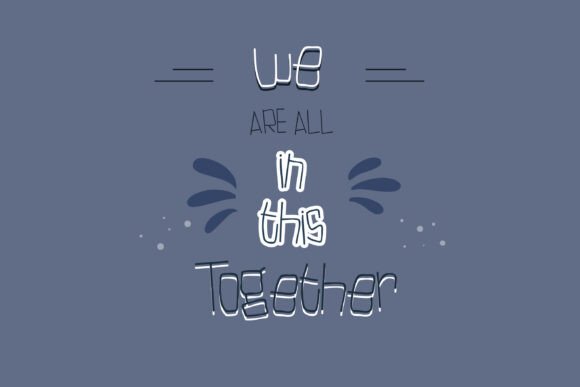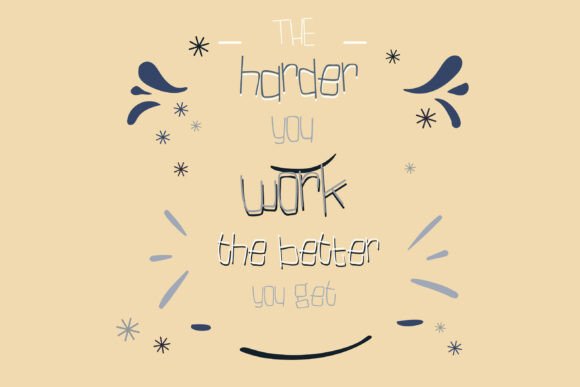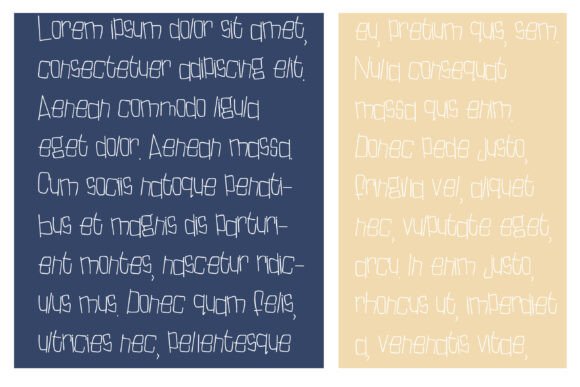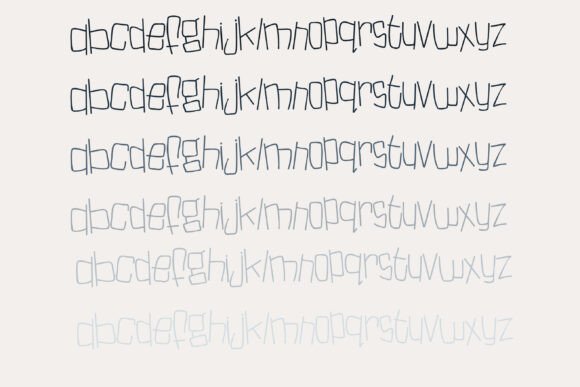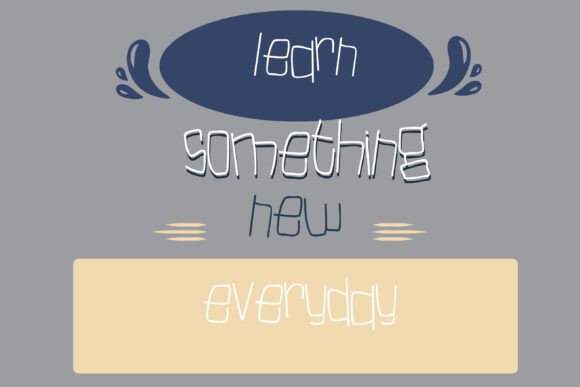
The Perfect Brushstroke for Your Next Design
As designers, we’ve all been there – staring at a blank page, trying to come up with the perfect font to bring our vision to life. It’s that moment of inspiration when everything falls into place, and the perfect brushstroke appears. For many, it’s the start of a beautiful relationship with a font that speaks to our creative soul. And for those who appreciate the charm of handwritten fonts, there’s a new friend in town: Boxster Font.
This hand-crafted font is a beautiful blend of whimsy and sophistication, perfect for adding a personal touch to your designs. Whether you’re working on invitations, greeting cards, or any other project that requires a unique touch, Boxster Font is an excellent choice. Its boxy, print-inspired design makes it stand out from the crowd, and the bold version included takes it to a whole new level. With Boxster Font, designers can add a touch of personality to their work, making it truly unforgettable.
Key Features of Boxster Font
- Font Family: Boxster, with multiple styles (Regular, Italic, Bold, Bold Italic)
- Character Set: Supports a wide range of languages, including Latin, Cyrillic, and Greek alphabets
- Unique Characteristics: Features a unique, modern design with a mix of geometric and organic shapes, making it ideal for use in logos, branding, and advertising
Boxster Font Review
Overall, I think the Boxster Font is an interesting choice for designers. Here are some things that work well:
- ✨ It has a unique, playful vibe that can add a touch of whimsy to your designs.
- ✨ The font is highly customizable, with a range of weights and styles to choose from.
- ✨ The font is well-suited for headings and titles, where you want to make a statement.
- ⚠️ The font may not be suitable for body text, as it can be difficult to read at smaller sizes.
- ⚠️ The font’s playful vibe may not be suitable for all types of projects, particularly those that require a more serious tone.
- ⚠️ The font’s customization options can be overwhelming, making it difficult to choose the right style for your project.
Overall, I think the Boxster Font is a good choice for designers who want to add a touch of personality to their projects. While it may not be suitable for all types of projects, it can be a great addition to your design toolkit.
Tips for Getting the Most Out of Boxster Font
Use Boxster Font for headings and titles to create a visually appealing contrast with body text.
Experiment with different font sizes and styles to emphasize important information.
Combine Boxster Font with other fonts to create a unique and interesting typography.
Use Boxster Font for:
- Brand logos and typography
- Print materials (e.g., business cards, brochures
Alternatives to Boxster Font
Playfair Display is an elegant and luxurious serif font. It is suitable for use in high-end branding, advertising, and editorial content where a touch of sophistication is desired. It has a more formal and traditional feel compared to Boxster Font, which is more modern and playful.
Great Vibes is a modern and stylish script font. It is ideal for use in creative projects, such as invitations, posters, and social media graphics where a casual and friendly tone is desired. Unlike Boxster Font, Great Vibes has a more relaxed and free-flowing feel.
Merriweather is a classic and timeless serif font. It is suitable for use in publications, websites, and corporate branding where a sense of tradition and stability is desired. Compared to Boxster Font, Merriweather has a more formal and serious feel, but still maintains a level of elegance.